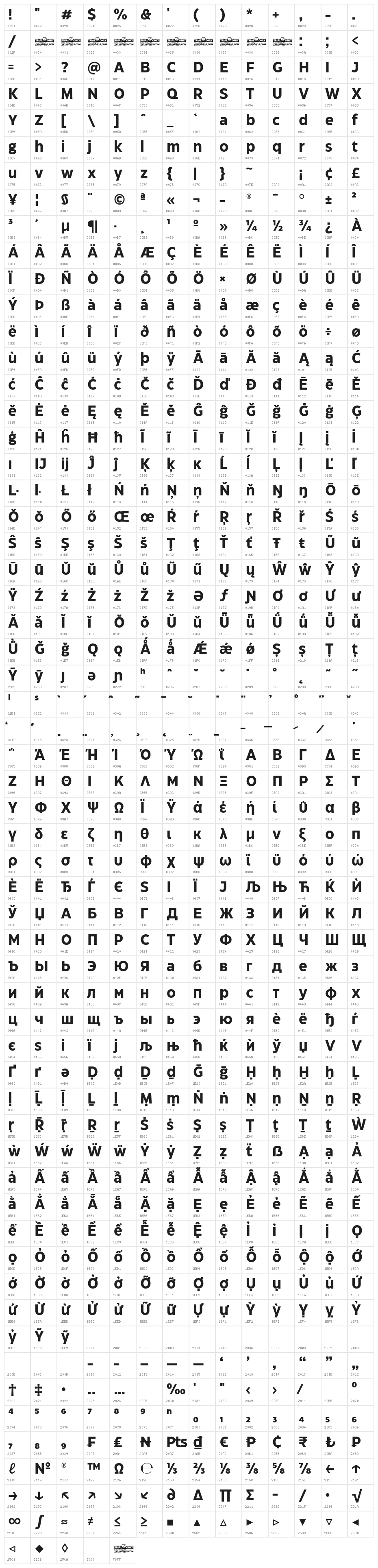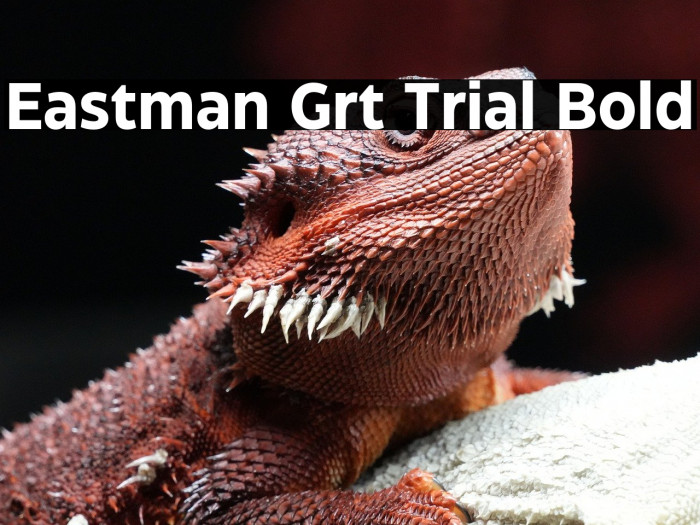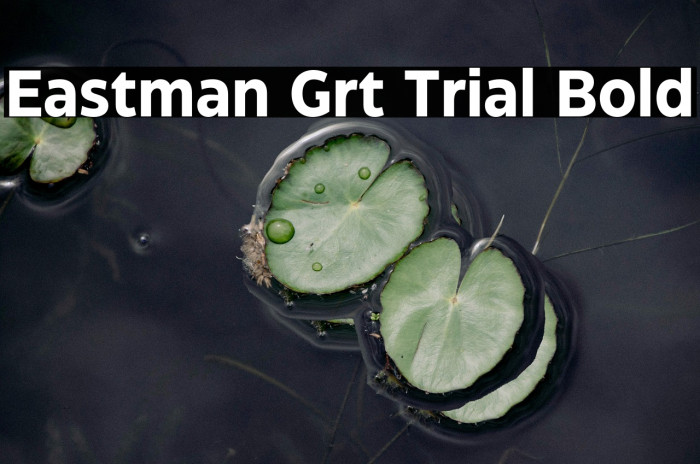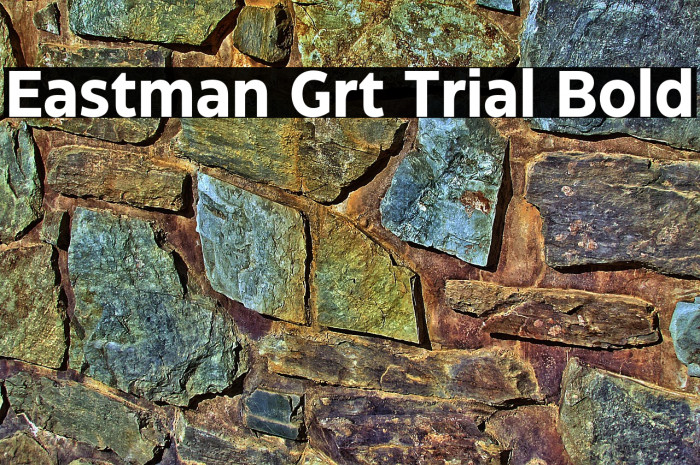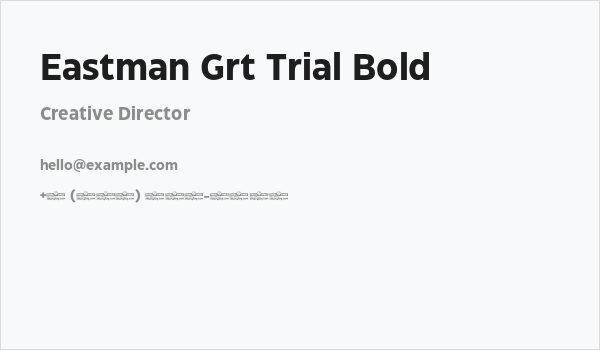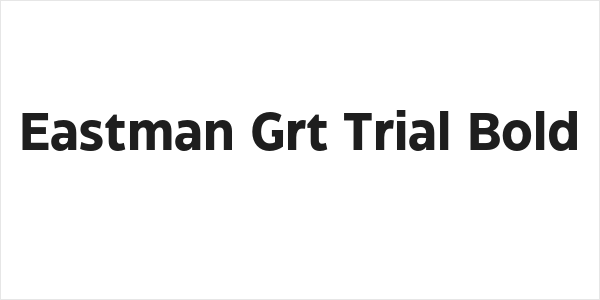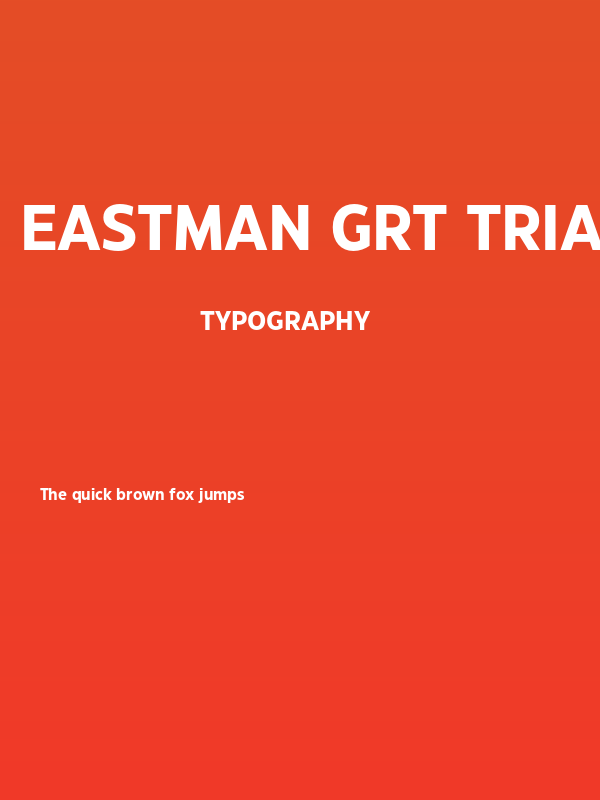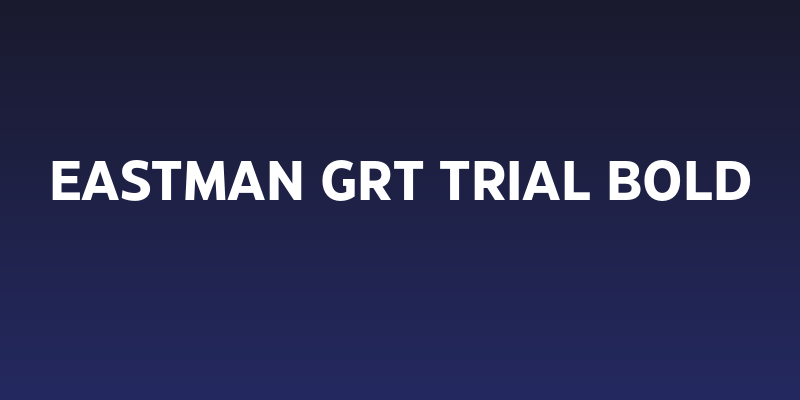
Eastman Grt Trial Bold Font
Eastman Grt Trial Bold Description
This font features a bold and robust design, characterized by its thick strokes and strong presence. The characters are well-defined with a modern sans-serif style, offering a clean and professional look. The uppercase and lowercase letters maintain a consistent weight, providing a harmonious appearance across the alphabet. The numerals and special characters are equally bold, ensuring readability and impact. This font is ideal for making statements with its clear and assertive style.